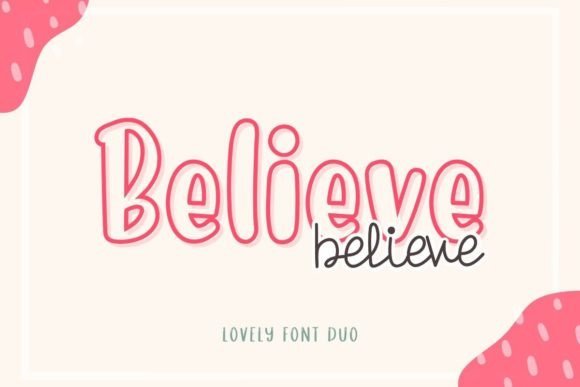
The Magic of Handwritten Fonts: Unlocking Your Creativity with Believe Font
Have you ever been brainstorming a new design project and suddenly, the perfect idea strikes you? The words flow effortlessly, and the vision is crystal clear. That’s the magic of creativity, and it’s exactly what the Believe Font is designed to capture.
Believe Font is a charming, handwritten duo that’s been crafted to bring your ideas to life. Whether you’re a seasoned designer or just starting out, this font is perfect for creating a wide range of designs that will leave a lasting impression. From banners and social media posts to mugs and stationery, the possibilities are endless with Believe Font.
For designers, Believe Font is a valuable tool that can elevate your work to new heights. Its unique, handwritten style adds a touch of personality and whimsy to any design, making it stand out from the crowd. So why settle for ordinary when you can create something extraordinary with Believe Font?
Believe Font Key Features
- Unique Characteristics: Believe Font features a distinctive, modern design with a unique blend of rounded and geometric shapes, making it perfect for creative and artistic projects.
- Font Style: Believe Font is available in two styles: Regular and Bold, offering users flexibility and versatility in their design choices.
Believe Font Review
As a designer, I was excited to dive into the Believe Font and see what it had to offer. Here’s my honest review:
- Unique and elegant design: Believe Font has a distinct, cursive style that’s perfect for adding a touch of sophistication to any project.
- Highly legible: Despite its cursive nature, the font is surprisingly easy to read, making it a great choice for body text.
- Good for creative projects: Believe Font’s whimsical feel makes it an excellent choice for projects that require a bit of flair, such as marketing materials, social media graphics, or even wedding invitations.
- Limited font sizes: Believe Font seems to struggle at very small font sizes, becoming difficult to read or even disappearing altogether.
- Not suitable for technical writing: The font’s cursive style makes it less than ideal for technical writing or projects that require a more formal tone.
Overall, I’d say Believe Font is a great choice for designers looking to add some elegance and creativity to their projects. While it has its limitations, its unique design and high legibility make it a solid addition to any font collection.
Tips for Getting the Most Out of the Believe Font
Use the Believe Font to add a touch of elegance and sophistication to your designs.
Pair the Believe Font with bold, contrasting colors to create a striking visual effect.
Experiment with different font sizes and styles to add depth and interest to your text.
The Believe Font is perfect for:
Business cards and marketing materials
Headlines and titles in blog posts and articles
Alternative Fonts to Believe Font
Great Vibes is a beautiful, modern script font perfect for creating a whimsical and elegant look. It’s ideal for use in titles, headings, and other decorative elements where you want to add a touch of sophistication. Great Vibes is a great alternative to Believe Font for designers who want a more refined and polished look.
Comparison: While Believe Font has a more casual and playful feel, Great Vibes is more formal and elegant. Great Vibes is a better choice for designers who want a more sophisticated look.